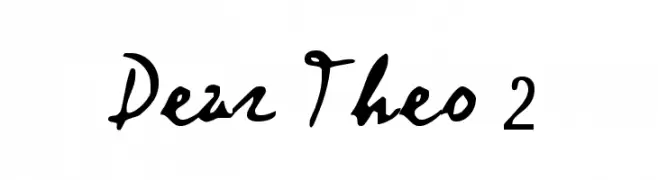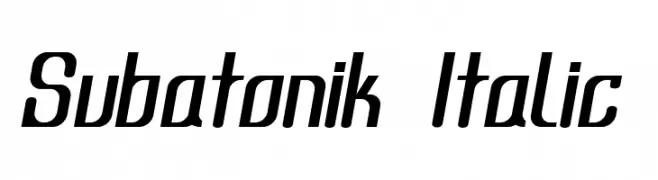
( Fonts by Ben Nathan )
A modern, geometric font with rounded characters and even stroke width.
( Fonts by Levi Halmos )
A modern italic font with sleek, elongated characters and a dynamic style.
( Fonts by www.DigitalDreamDesign.net )
A bold, outlined font with a geometric and modern style.
( Fonts by Mr Fisk - Mike Larsson - fontorama.net )
Expressive handwritten font with fluid, cursive strokes.
( Fonts by AEnigma - www.aenigmafonts.com )
A bold, playful font with rounded, solid characters and a modern, cohesive style.